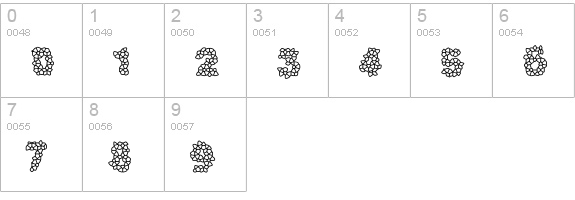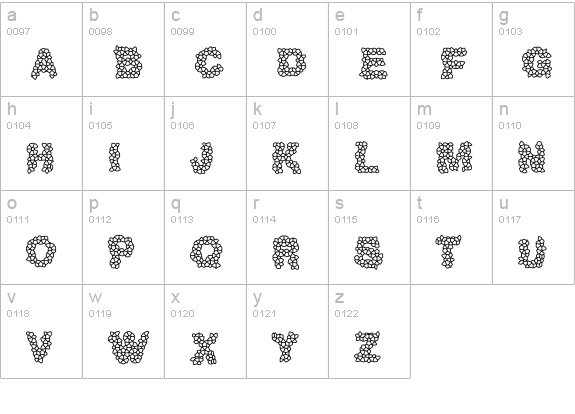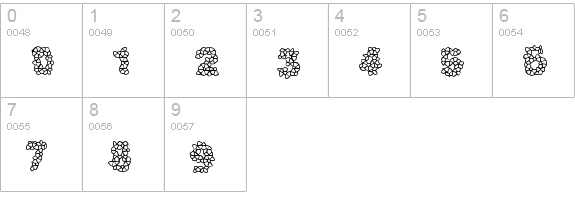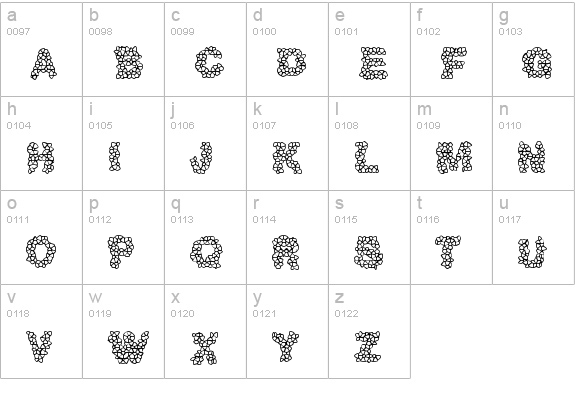
GaudiGrout Font Details
GaudiGrout is a unique and eye-catching font that combines elegance with a touch of playfulness. This versatile typeface is perfect for both headlines and body text, making it ideal for a wide range of design projects. With its modern yet timeless appeal, GaudiGrout is sure to make your designs stand out from the crowd. Best of all, GaudiGrout is available for free download at FontsMarket.com. This means you can easily add this stunning font to your collection without any cost. Don't miss out on the opportunity to enhance your designs with GaudiGrout - download it today and let your creativity soar!